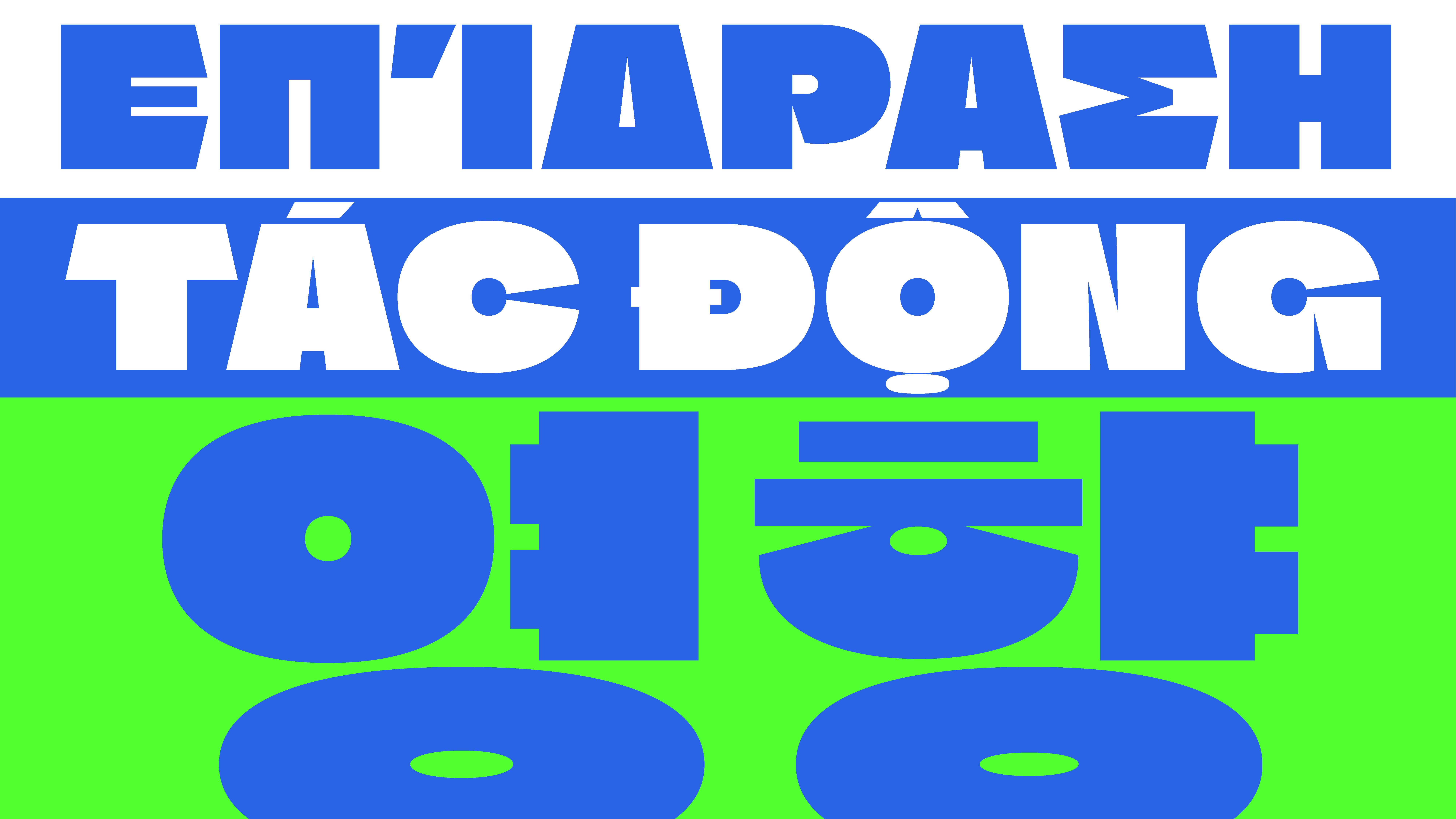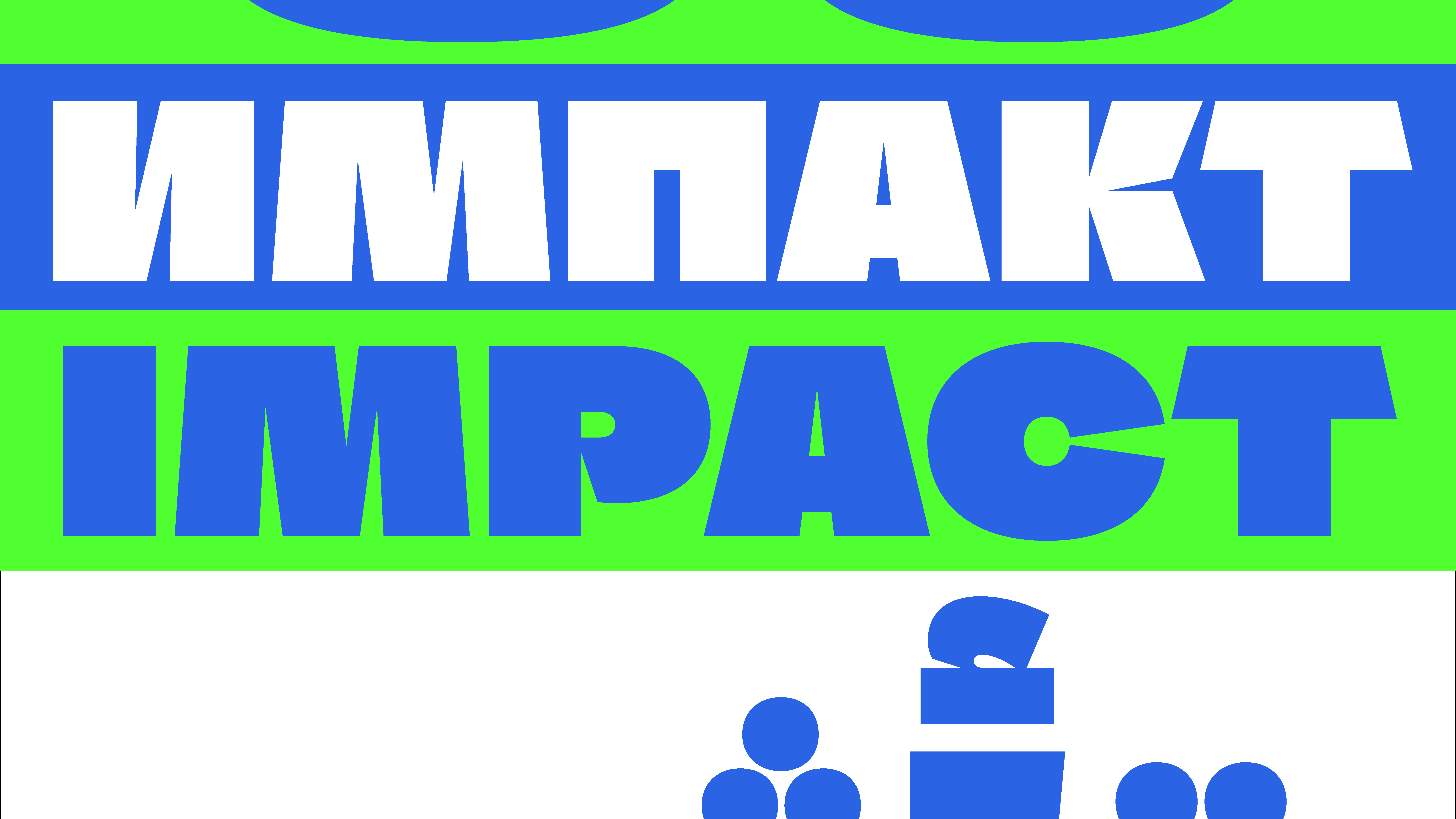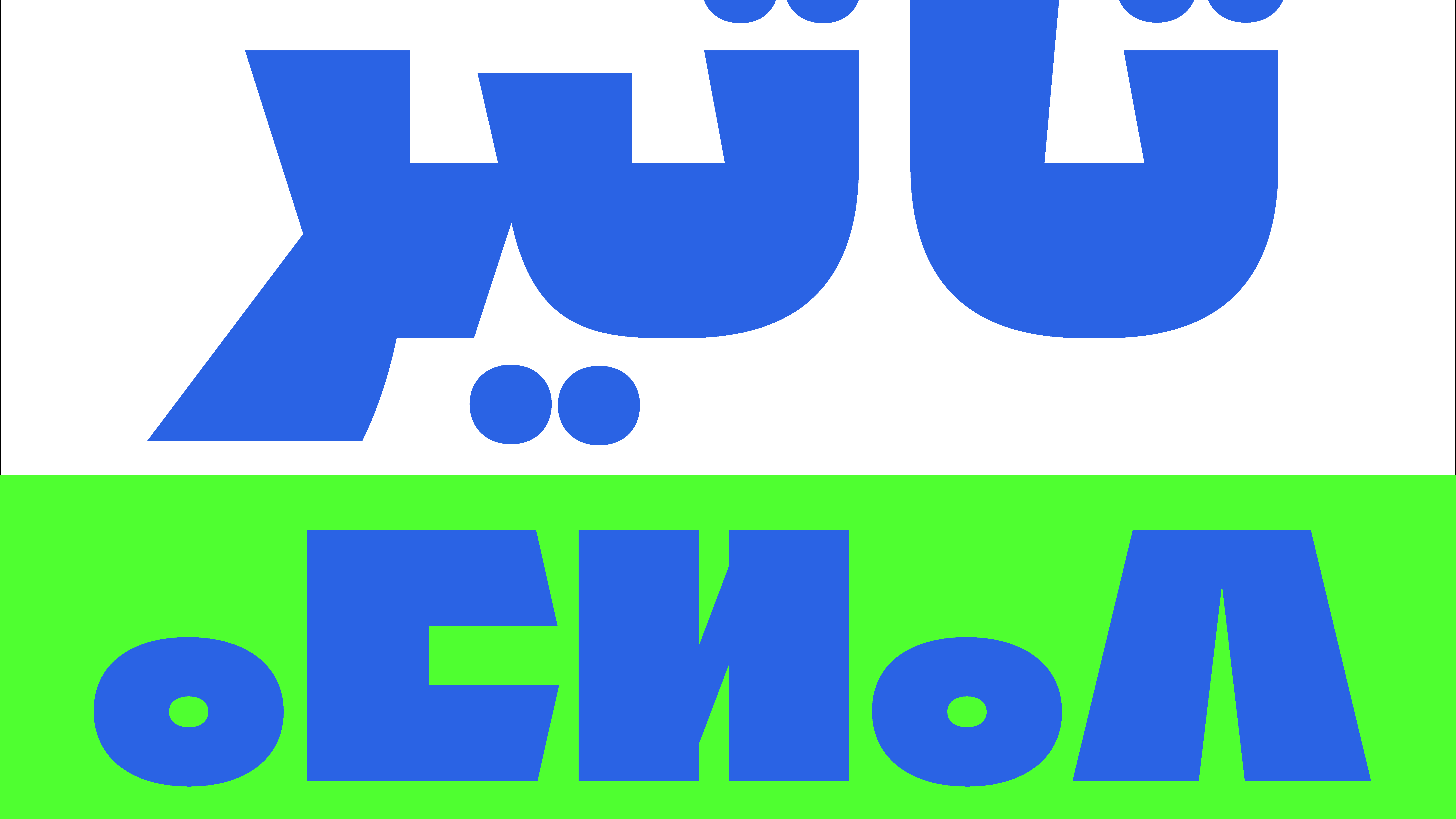
Mabrok
مبرك
في بابلفونت، لا نرسم الحروف... بل نُحرّرها من أقفاص اللغة! هل رأيتَ حرفًا يتمطّى؟ نحن رأيناه. وحرفًا آخر يرقص على السطر، ثم يختفي فجأة في هامش المعنى. بعض الحروف عندنا تنام في الكلمة، وبعضها الآخر لا يعرف النوم... كل ما يريده هو النطق، النطق، ثم النطق! وهناك حرف كان يصرخ: "أنا لست نقطتين فوق التاء، أنا تاج!" وحرف آخر رفض أن يكون في نهاية الجملة، لأنه يخاف من النقطة. في بابلفونت، الحروف تتحدث لغات لا تُعدّ. العربية، اللاتينية، التيفيناغ، الكورية... كلها تجلس على طاولة واحدة، تشرب الشاي، وتتناقش في قضايا الشكل والبياض والميزان البصري. قد تقول لي: "لكن الحرف لا يتكلم!" وأنا أقول لك: بل يتكلم، فقط عليك أن تقرأه جيّدًا. الخط ليس مجرد رسم، إنه تمثيل مسرحي صامت، يصرخ دون صوت. بعض الخطوط سمينة، وبعضها نحيفة، وبعضها مثل طير لا يعرف أين يضع قدميه. في بابلفونت، لا نبيع الخطوط، بل نروي بها القصص. الخط عندنا لا يُقصّ ولا يُضغط... هو يُهمَس، يُقطّر، يُسكب على الصفحة كالعطر. حرف العين قال يومًا لحرف الاّم: "أنا أعقد منك!" فردّ الاّم: "لكنني أطول!" وفي النهاية اتفقا على أن الجمال في الخط ليس في الطول أو العقد، بل في الانسجام. نحن في بابلفونت لا نبحث عن الحروف، نحن نخلقها. ثم نتركها تسير على الورق كما تشاء... فهل تجرؤ على قراءتها؟
ⵎⴱⵔⵓⵇ
ⵜⴰⵡⵉⵏⴰ ⵉⵏⴰⵡⴰⵙⵙ ⵏ ⵉⵖⵔⵉ ⴷ ⴰⵎⵓⵍ ⵏ ⴰⵙⴳⴰⵣ. ⵉⵖⵍⴰ ⴷ ⴰⴽⴰⵣ, ⴰⵙⵉⵏ ⴷ ⵢⵉⵏ, ⵉⵎⵓⵙⵙⴰ ⵓⵏⴰⴷ ⴰⵎⴰⵣⵉⵖ ⴰⴷ ⴰⵍⴰⵎⴰⵏ. ⴰⵡⵉⴷ ⴰⴳⵔⴰⵡ ⵓⵙⵏⵉⴹ, ⵏⵉⴷⵓⴷ ⴰⵣⴰⵍ, ⵉⵍⴰ ⵓⴱⴰⵔⴷ ⴰⴽⵔⴰⵡ ⵙⴰ ⵉⵣⴰⵡⴰⵏ. ⴰⵎⴰⵍⵍⵓ ⵏⵉⵖ, ⴰⴷⵔⴰⵏ ⵉⴷ ⴰⵏⵉⵍⵍⵉ ⴷ ⴰⴷⵓⴷⵉⵏ. ⵓⵙⵍⴰⵡ ⴰⵏⵎⴰⴹ ⵏ ⵜⴰⵡⵉⵏⴰ ⴷ ⴰⵙⴳⴰⵣ ⵙ ⵜⴰⵙⴳⴰⵡⵜ ⵓⵏⴰⴷ ⵜⴰⵎⴰⵣⵉⵖⵜ. ⴰⵡⵉⵙⵉ ⵙⴰ ⴷⴰⵔ ⵉⴷ ⵓⵏⵖⵓⵍ ⴷ ⴰⵔⴰⵡ. ⵙⵉⵏ ⴰⴷ ⴰⵙⵙⵓⵔⵉⵏ ⵙ ⵜⴰⵣⴰⵍⵜ. ⴰⵏⴰⵎⴻⵔⴰ ⵏⴰⵎⴰⵢⵏ ⵉⵙⴷⴰ ⵓⴷⴻⵔⵏ ⵏⵓⵎⴻⵔⵍⴰⴷ, ⵓⵏⴰⴷ ⵉⵎⴰⵙⴷⴰ ⴷ ⴰⵍⴰⵎⴰⵏ. ⵉⵏⴰⵡⴰⵙⵙ ⵜⴰⵎⵓⵍⴰⵡⵉⵜ, ⵙⵙⴰⴳⴰⵔⵉⵜ, ⵙⴰⵡⴰⵙⴰⵏⵜ. ⴰⴳⴳⴰⴷ ⵏ ⵉⵙⵙⴰ ⴰⴷ ⴰⴳⴳⴰⴷ ⵏ ⵓⴳⵔⴰⵡ. ⵜⴰⵡⵉⵏⴰ ⴷ ⴰⴼⴰⵏⴰⵙ ⴷ ⵜⴰⵎⵓⵣⵣⴰ ⵉⴷ ⴰⵙⵉⵏ. ⵜⴰⵏⴰⴹⴰ ⴷ ⵜⴰⵎⴻⴳⴷⴰ ⵉⴷ ⵜⵉⵎⵓⴽⴽⴰⵍⵉⵢⵉⵏ. ⴰⵍⴰⵎⴰⵏ ⴷ ⴰⵙⴳⴰⵣ ⵙⴰ ⵉⴱⴰⵏ ⵙ ⵓⴱⴻⵙⴰⵡⵉⵏ. ⵓⵙⵍⴰⵡ ⴰⴳⴷⴰⵔⴻⵏ, ⵓⵙⵍⴰⵡ ⴰⵍⴻⴷⵉ ⴷ ⵜⴰⵏⵏⴰⵙⵙⵓⵏⵜ.ⵜⴰⵡⵉⵏⴰ ⵉⵏⴰⵡⴰⵙⵙ ⵏ ⵉⵖⵔⵉ ⴷ ⴰⵎⵓⵍ ⵏ ⴰⵙⴳⴰⵣ. ⵉⵖⵍⴰ ⴷ ⴰⴽⴰⵣ, ⴰⵙⵉⵏ ⴷ ⵢⵉⵏ, ⵉⵎⵓⵙⵙⴰ ⵓⵏⴰⴷ ⴰⵎⴰⵣⵉⵖ ⴰⴷ ⴰⵍⴰⵎⴰⵏ. ⴰⵡⵉⴷ ⴰⴳⵔⴰⵡ ⵓⵙⵏⵉⴹ, ⵏⵉⴷⵓⴷ ⴰⵣⴰⵍ, ⵉⵍⴰ ⵓⴱⴰⵔⴷ ⴰⴽⵔⴰⵡ ⵙⴰ ⵉⵣⴰⵡⴰⵏ. ⴰⵎⴰⵍⵍⵓ ⵏⵉⵖ, ⴰⴷⵔⴰⵏ ⵉⴷ ⴰⵏⵉⵍⵍⵉ ⴷ ⴰⴷⵓⴷⵉⵏ. ⵓⵙⵍⴰⵡ ⴰⵏⵎⴰⴹ ⵏ ⵜⴰⵡⵉⵏⴰ ⴷ ⴰⵙⴳⴰⵣ ⵙ ⵜⴰⵙⴳⴰⵡⵜ ⵓⵏⴰⴷ ⵜⴰⵎⴰⵣⵉⵖⵜ. ⴰⵡⵉⵙⵉ ⵙⴰ ⴷⴰⵔ ⵉⴷ ⵓⵏⵖⵓⵍ ⴷ ⴰⵔⴰⵡ. ⵙⵉⵏ ⴰⴷ ⴰⵙⵙⵓⵔⵉⵏ ⵙ ⵜⴰⵣⴰⵍⵜ. ⴰⵏⴰⵎⴻⵔⴰ ⵏⴰⵎⴰⵢⵏ ⵉⵙⴷⴰ ⵓⴷⴻⵔⵏ ⵏⵓⵎⴻⵔⵍⴰⴷ, ⵓⵏⴰⴷ ⵉⵎⴰⵙⴷⴰ ⴷ ⴰⵍⴰⵎⴰⵏ. ⵉⵏⴰⵡⴰⵙⵙ ⵜⴰⵎⵓⵍⴰⵡⵉⵜ, ⵙⵙⴰⴳⴰⵔⵉⵜ, ⵙⴰⵡⴰⵙⴰⵏⵜ. ⴰⴳⴳⴰⴷ ⵏ ⵉⵙⵙⴰ ⴰⴷ ⴰⴳⴳⴰⴷ ⵏ ⵓⴳⵔⴰⵡ. ⵜⴰⵡⵉⵏⴰ ⴷ ⴰⴼⴰⵏⴰⵙ ⴷ ⵜⴰⵎⵓⵣⵣⴰ ⵉⴷ ⴰⵙⵉⵏ. ⵜⴰⵏⴰⴹⴰ ⴷ ⵜⴰⵎⴻⴳⴷⴰ ⵉⴷ ⵜⵉⵎⵓⴽⴽⴰⵍⵉⵢⵉⵏ. ⴰⵍⴰⵎⴰⵏ ⴷ ⴰⵙⴳⴰⵣ ⵙⴰ ⵉⴱⴰⵏ ⵙ ⵓⴱⴻⵙⴰⵡⵉⵏ. ⵓⵙⵍⴰⵡ ⴰⴳⴷⴰⵔⴻⵏ, ⵓⵙⵍⴰⵡ ⴰⵍⴻⴷⵉ ⴷ ⵜⴰⵏⵏⴰⵙⵙⵓⵏⵜ.
Маброк
Когда я впервые услышал слово «Бабелфонт», я подумал, что это, вероятно, название планеты, где буквы растут на деревьях, а абзацы пролетают в небе, как птицы, которые забыли, что у них есть перья. Я попытался напечатать своё имя, но оно сбежало с экрана. Удивительно, как типографика умеет быть… невидимой! Когда она хороша — вы не её видите. Когда она плоха — вы не видите ничего!
С Бабелфонт всё наоборот. Шрифт не просто говорит, он поёт, прыгает, танцует фламенко, потом внезапно садится и читает Пушкина. Один кегль уходит в отпуск, другой страдает от депрессии, а жирный начертание громко жалуется, что его никто не слушает, потому что все читают курсив!
Я пытался объяснить это типографу. Он сказал: «Вы читаете с левой направо, но думаете сверху вниз». Это меня успокоило. Потому что я всегда думал, что буквы — это только формы. Но нет! У каждой буквы — душа. А у некоторых даже кошачьи усы.
Теперь я просыпаюсь, пью кофе, и шрифт сам выбирает меня. Один день — Тифинаг и Таймс Роман. Следующий — Арабика с Траклом. И всё это благодаря Бабелфонту. Потому что, если бы не он, я бы до сих пор писал всё в Comic Sans. А это, как вы понимаете, уже не жизнь — это кара!
Μαμπροκ
Όταν άκουσα για πρώτη φορά τη λέξη «Babelfont», νόμιζα ότι ήταν το όνομα ενός νησιού όπου τα γράμματα φυτρώνουν στα δέντρα και οι παράγραφοι πετούν στον ουρανό σαν πουλιά που ξέχασαν πώς να πετάξουν. Προσπάθησα να γράψω το όνομά μου, αλλά αυτό έφυγε από την οθόνη. Είναι περίεργο πώς η τυπογραφία μπορεί να είναι... αόρατη! Όταν είναι καλή, δεν τη βλέπεις. Όταν είναι κακή, δεν βλέπεις τίποτα!
Με το Babelfont, είναι το αντίθετο. Η γραμματοσειρά δεν μιλάει απλώς, τραγουδάει, χορεύει φλαμένκο, και ξαφνικά κάθεται και διαβάζει Πούσκιν. Ένα μέγεθος γραμματοσειράς πάει διακοπές, ένα άλλο πέφτει σε κατάθλιψη, και η έντονη γραφή παραπονιέται δυνατά ότι κανείς δεν την ακούει, γιατί όλοι διαβάζουν πλάγια!
Προσπάθησα να εξηγήσω αυτό σε έναν τυπογράφο. Μου είπε: «Διαβάζεις από αριστερά προς τα δεξιά, αλλά σκέφτεσαι από πάνω προς τα κάτω». Αυτό με καθησύχασε. Γιατί πάντα πίστευα ότι τα γράμματα είναι απλώς σχήματα. Αλλά όχι! Κάθε γράμμα έχει ψυχή. Και μερικά έχουν ακόμη και μουστάκια γάτας.
Τώρα ξυπνάω, πίνω τον καφέ μου, και η γραμματοσειρά με επιλέγει. Μια μέρα είναι Tifinagh και Times Roman. Την επόμενη, Αραβικά με Trakl. Και όλα αυτά χάρη στο Babelfont. Γιατί χωρίς αυτό, θα έγραφα ακόμα τα πάντα σε Comic Sans. Και αυτό, όπως καταλαβαίνετε, δεν είναι ζωή — είναι τιμωρία!
마브러크
처음 “바벨폰트(Babelfont)”를 들었을 때, 저는 외계 타이포그래피 비밀 조직인 줄 알았습니다. 글자가 춤을 추고, 자음이 모음을 데이트를 신청하고, 글꼴 하나가 무대에서 독백을 한다는 소문까지 있었습니다. 상상해보세요. ‘ㅁ’이 무대 중앙에서 “나의 사각은 너의 둥글음을 사랑한다!”라고 외친다면 얼마나 낭만적일까요?
바벨폰트에서는 글자가 조용히 있질 않습니다. 하나는 굵어지고, 다른 하나는 기울어지고, 또 다른 하나는 티피나그 문자와 사랑에 빠집니다. 오늘은 라틴과 아랍, 내일은 한국어와 프랑스어. 글꼴들이 국경을 넘나드는 걸 보면 여권이 필요 없는 세계가 여기에 있다는 걸 알 수 있죠.
제 컴퓨터에서는 바벨폰트가 자주 장난을 칩니다. 제가 쓴 “안녕하세요”를 “안녕히계세요”로 바꿔놓거나, “사랑”을 “사각”으로 오타처럼 만들어놓죠. 하지만 전 알아요. 이건 실수가 아니라 유쾌한 장난이라는 것을요. 맞아요, 바벨폰트는 그냥 글꼴이 아닙니다. 그것은 문화 교류의 장이며, 문자들의 연극 무대입니다.
어느 날, 한자가 힌디어와 협업하고, 다음 날엔 아마 아르메니아 문자가 디저트를 소개할지도 모릅니다. 그런 세상 속에서, 바벨폰트는 저에게 말합니다: "글자는 단순한 기호가 아니라 살아 있는 리듬이다."
Mabrok – Sculpted in the dark. Dense. Monumental. Mabrok is a heavy display typeface, reduced to the essentials. Just one weight. Sharp incisions, geometric counter shapes. Each letter seems sculpted, as if emerging from a solid block of stone. Designed for bold statements and strong identities, this font draws attention with quiet strength. Multiscript by nature: Latin, Arabic, Tifinagh, Hangul, Greek, Cyrillic.
Designers: Brahim Boucheikha, Gia Tran, Jean-Baptiste Pernette, Étienne Guégano, Léo Rosina